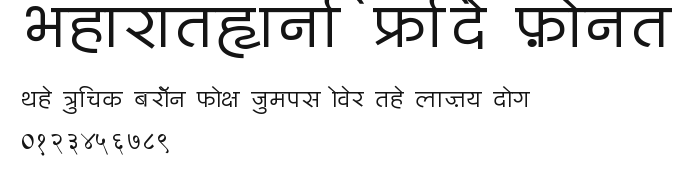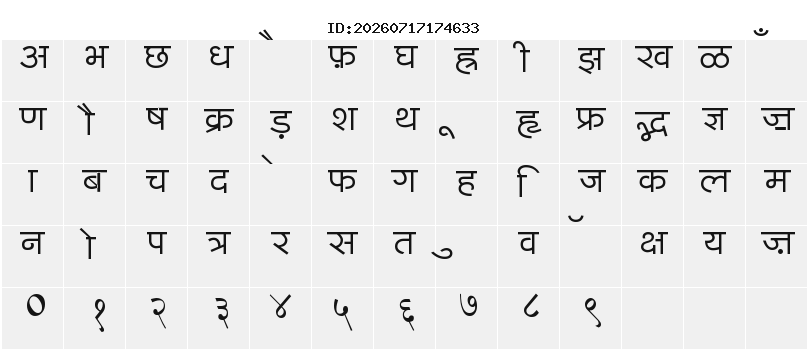
BharatVani Wide Font Preview
About BharatVani Wide Font.ttf
BharatVani Wide Font.ttf is a modern, elegant sans-serif font designed for ultimate readability and visual harmony. Perfect for branding, headlines, web design, and print materials.